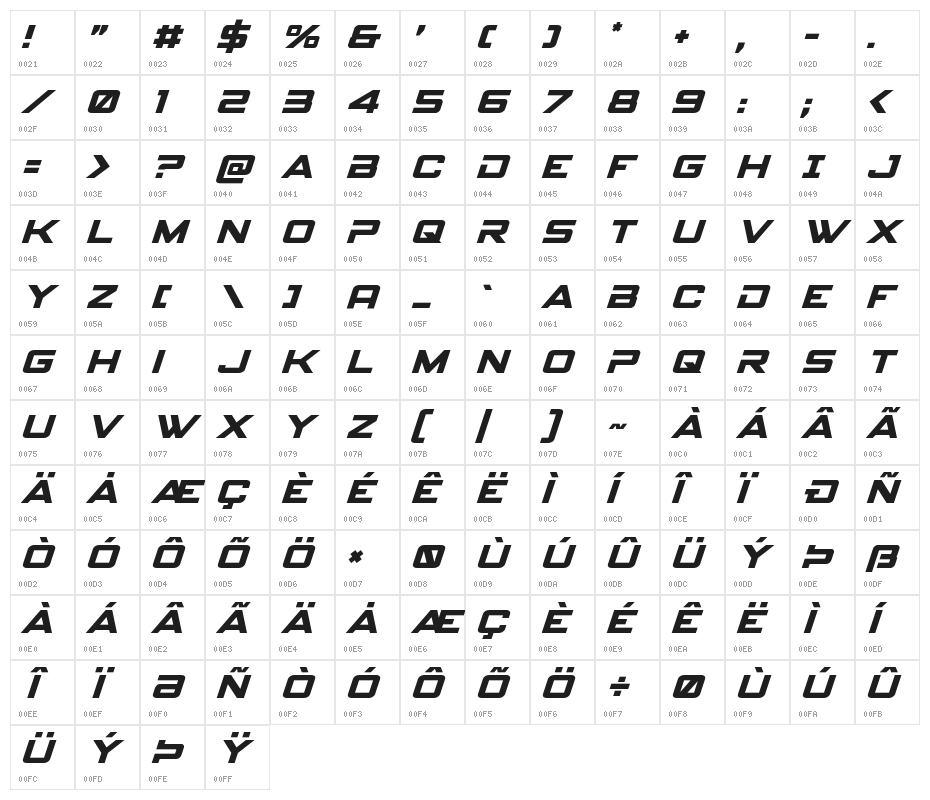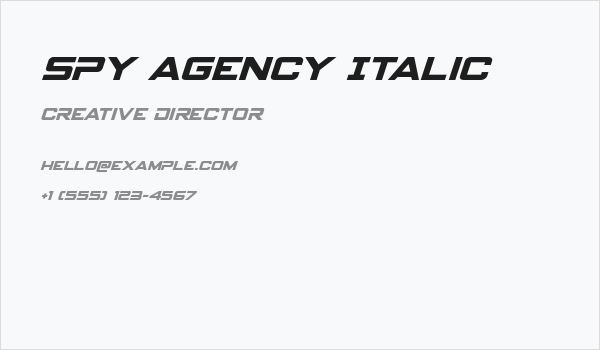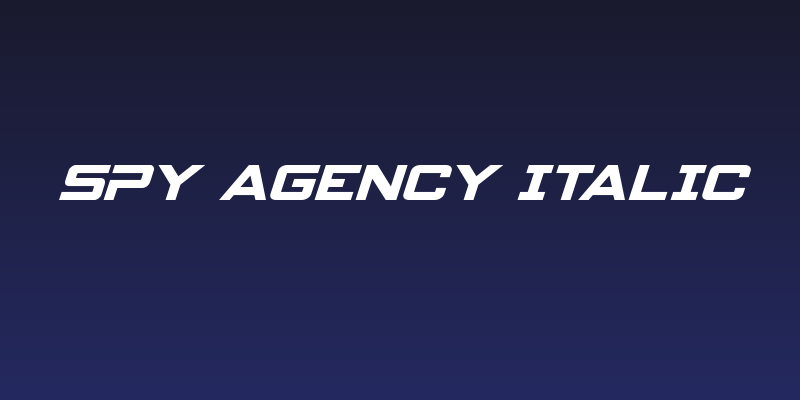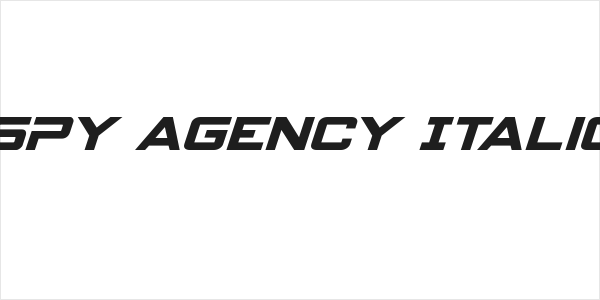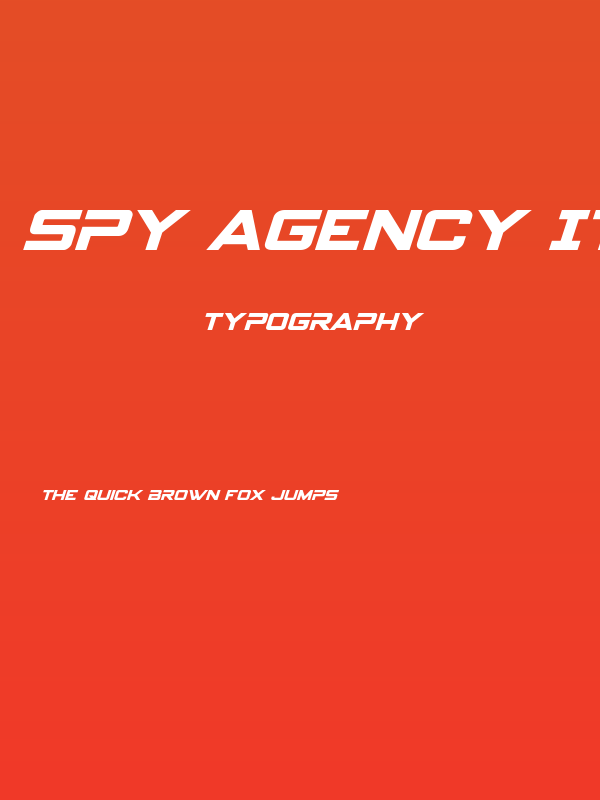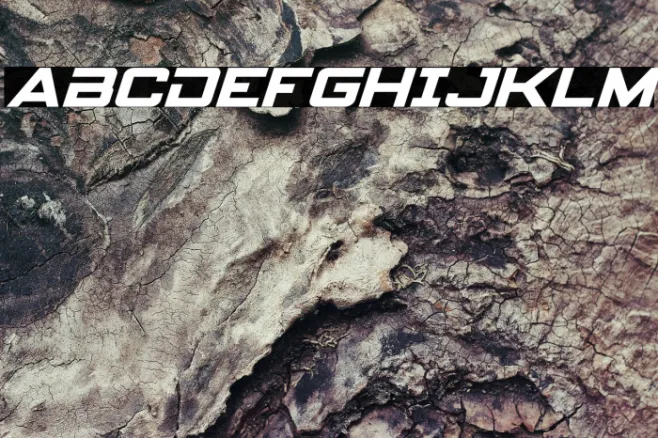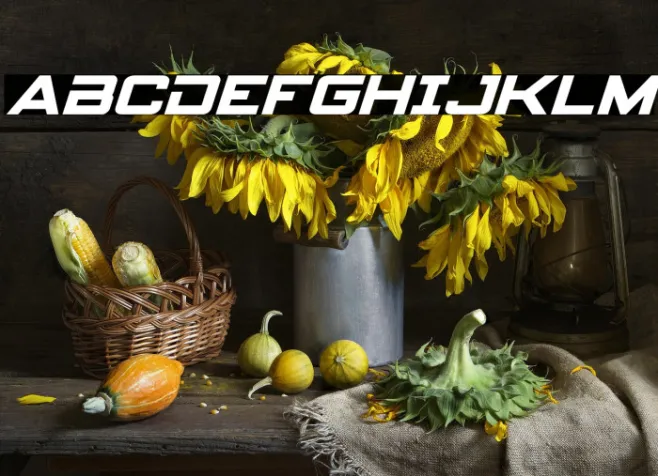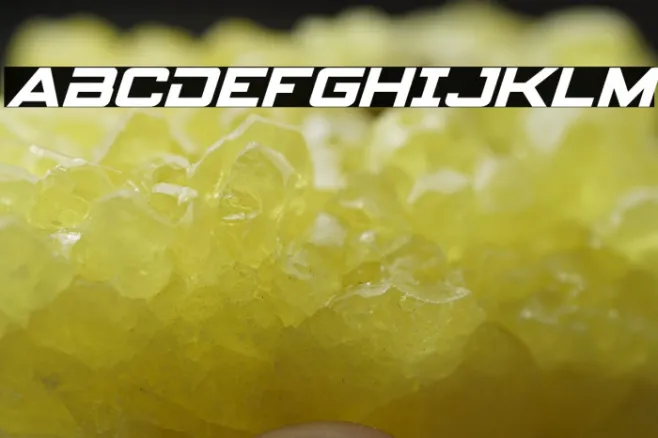
Spy Agency Italic Font
Spy Agency Italic Description
This font features a sleek, italicized design with a modern and futuristic aesthetic. The characters are sharply angled, giving a sense of motion and speed. The uppercase and lowercase letters maintain a consistent slant, enhancing the dynamic feel. The numbers and special characters follow the same style, ensuring uniformity across all glyphs. The font's boldness and geometric shapes make it stand out, ideal for projects requiring a strong visual impact.
| Proposed Projects | Ideal for branding, sports team logos, technology-related designs, and action-themed posters. |